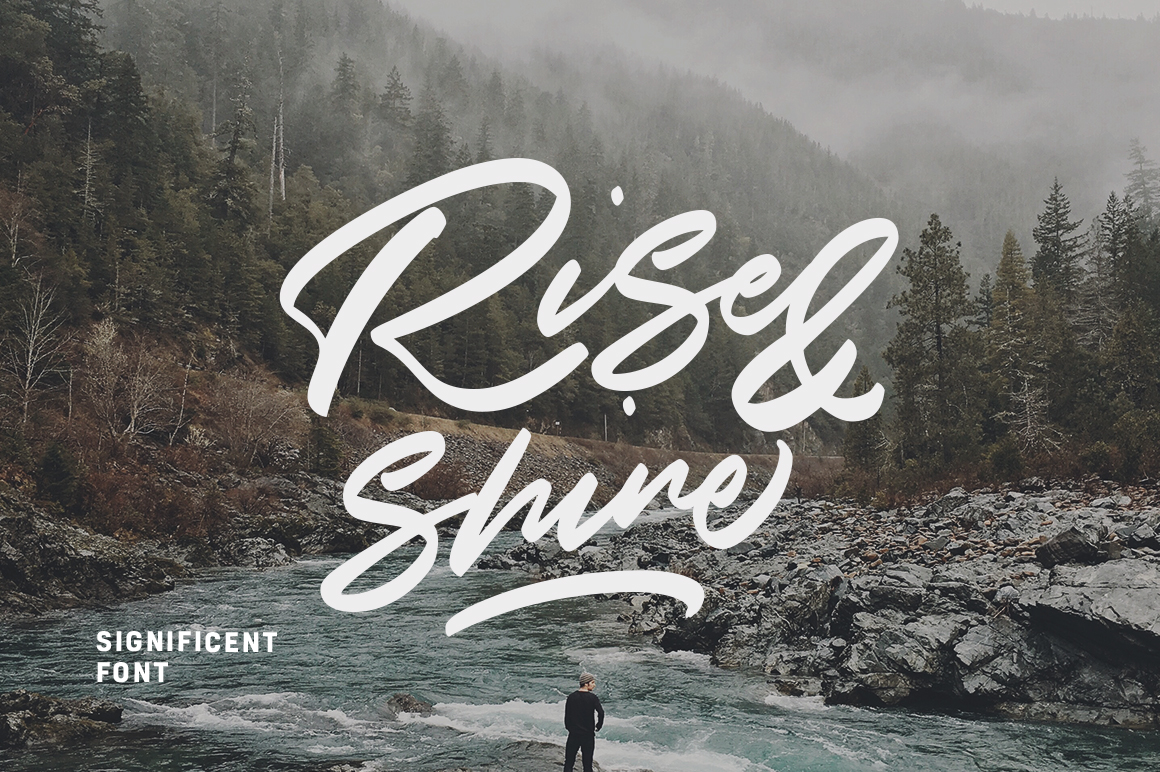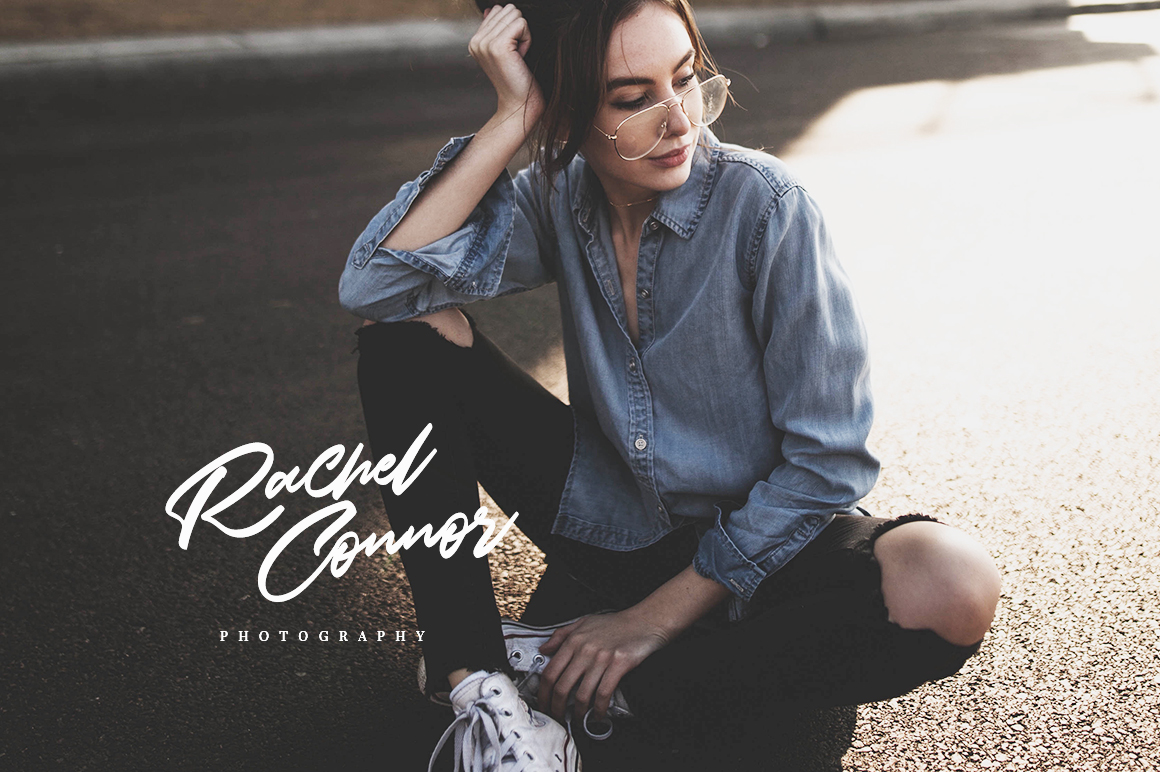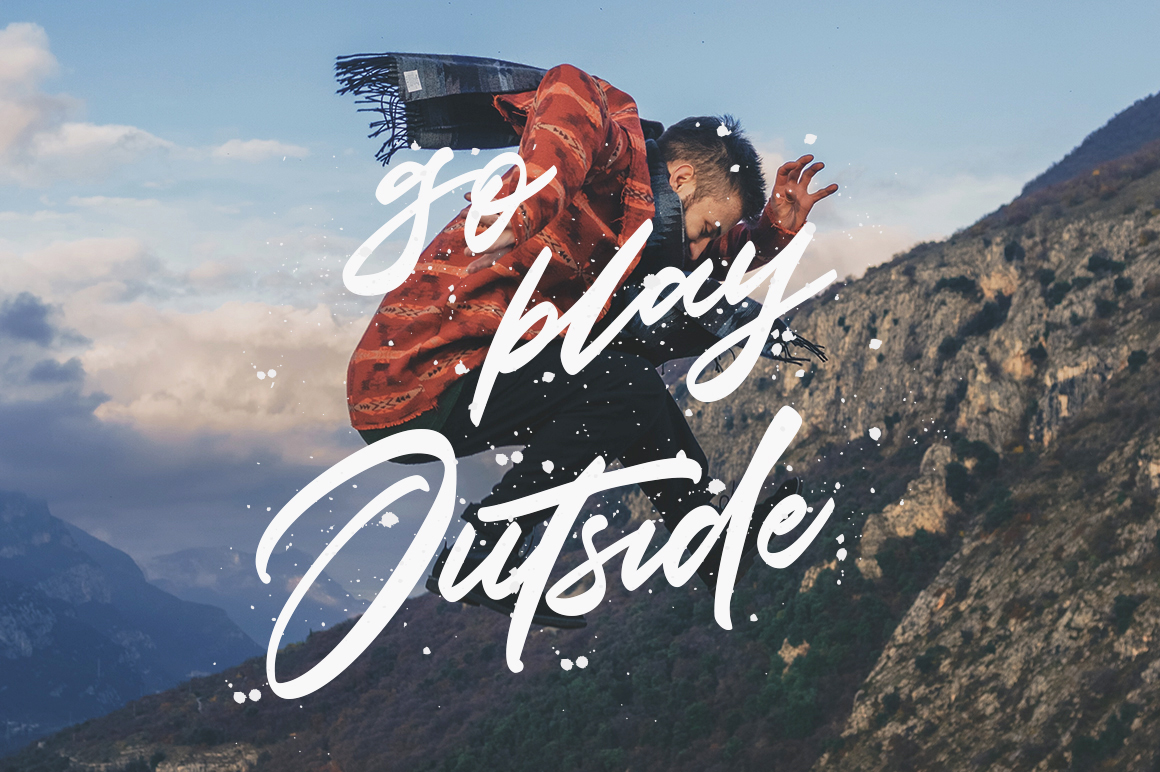
Significent Wild Brush Free Font
Significent Wild Brush Free Font is great for product logo, wedding card logo, clothing brand logo, vintage design, and much more. This free typeface was designed by a talented Hendra Dirtyline. If you like it don’t forget to check out the full version.